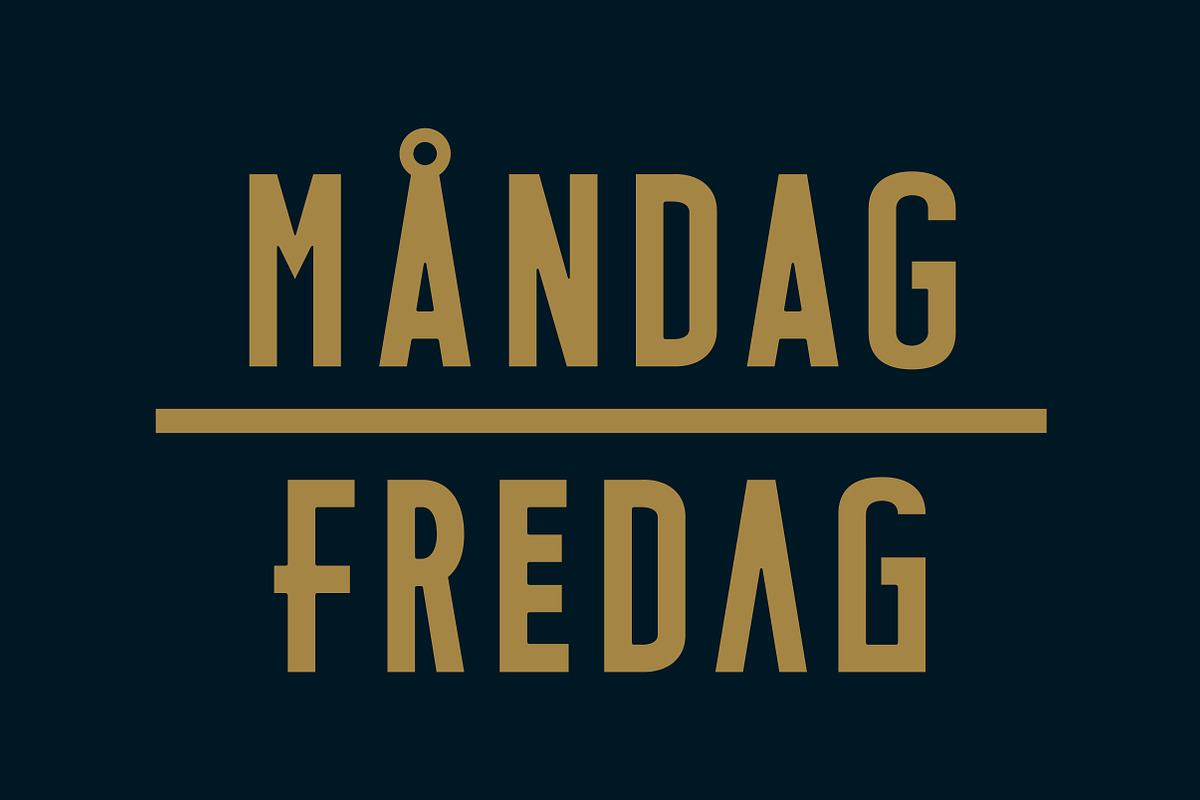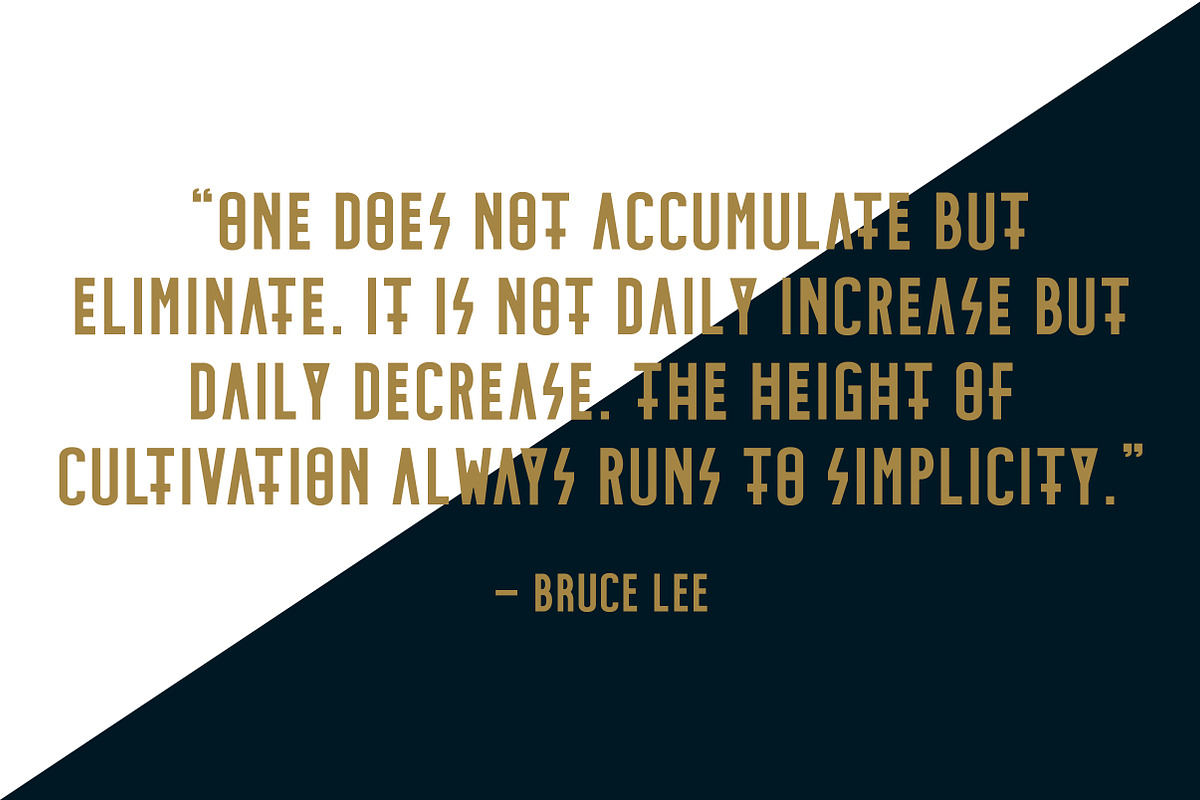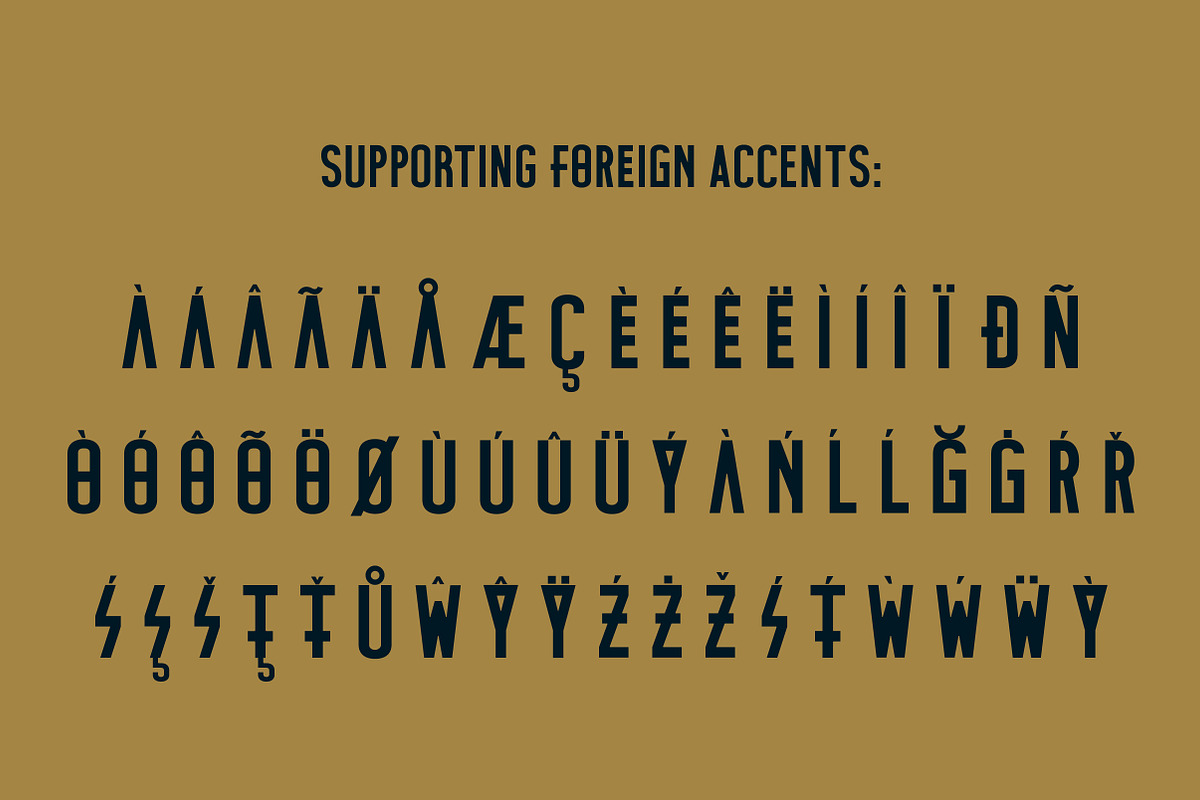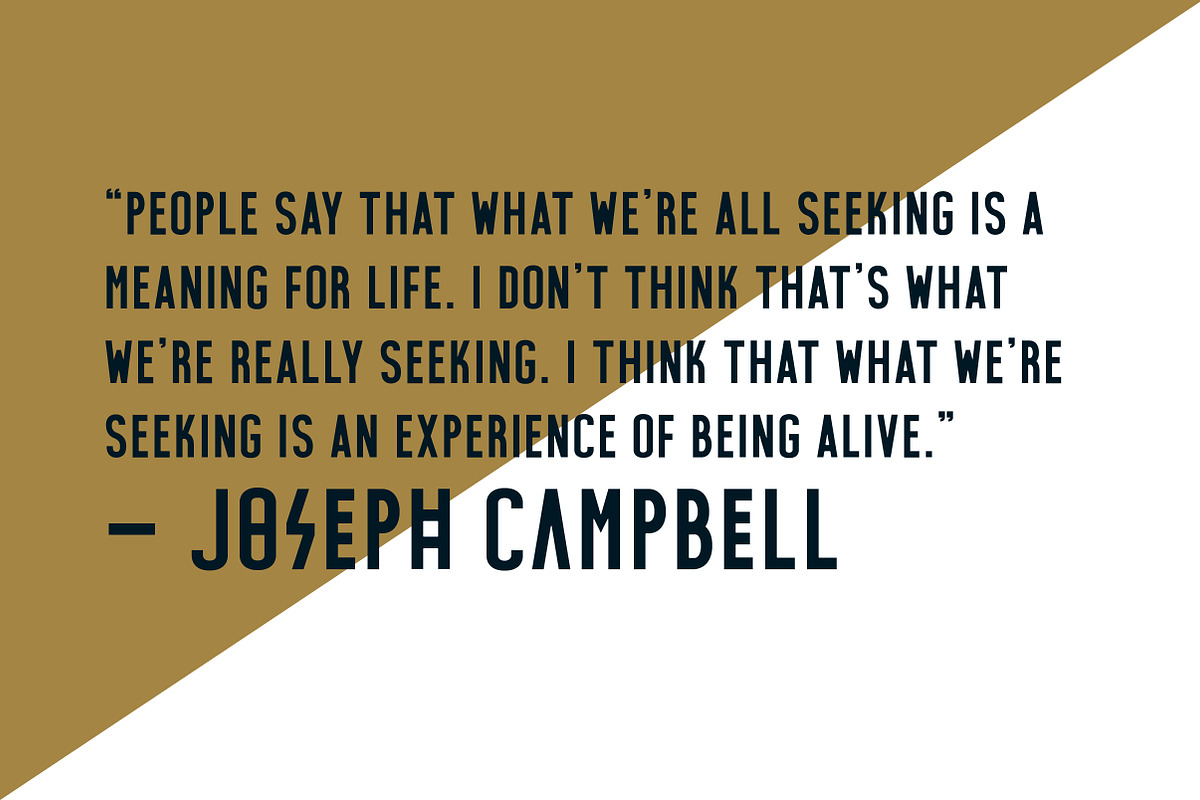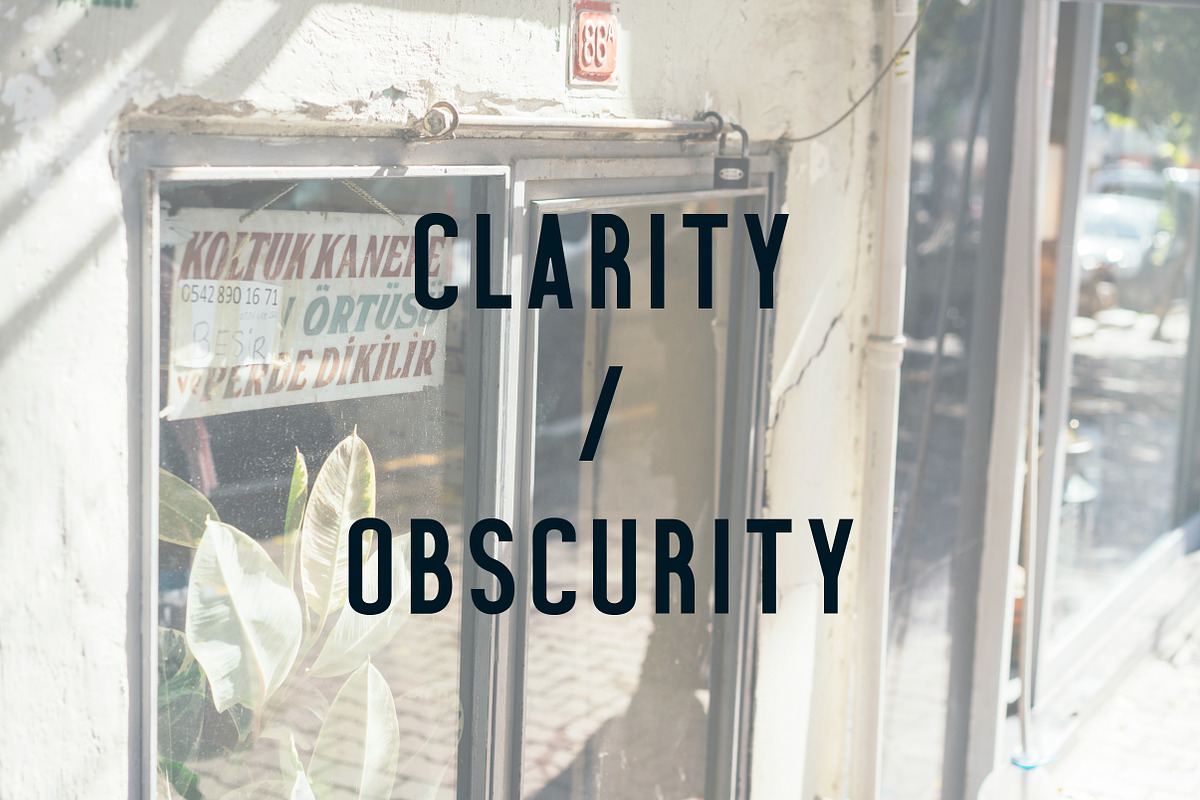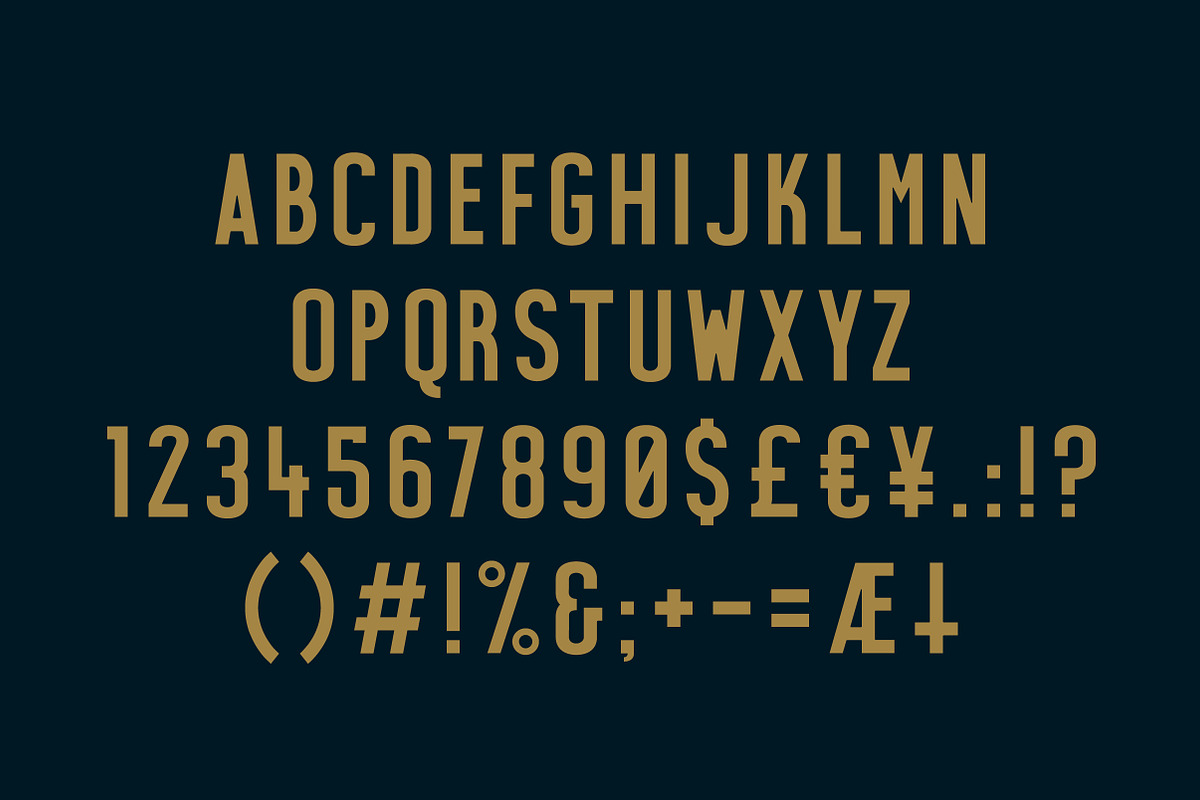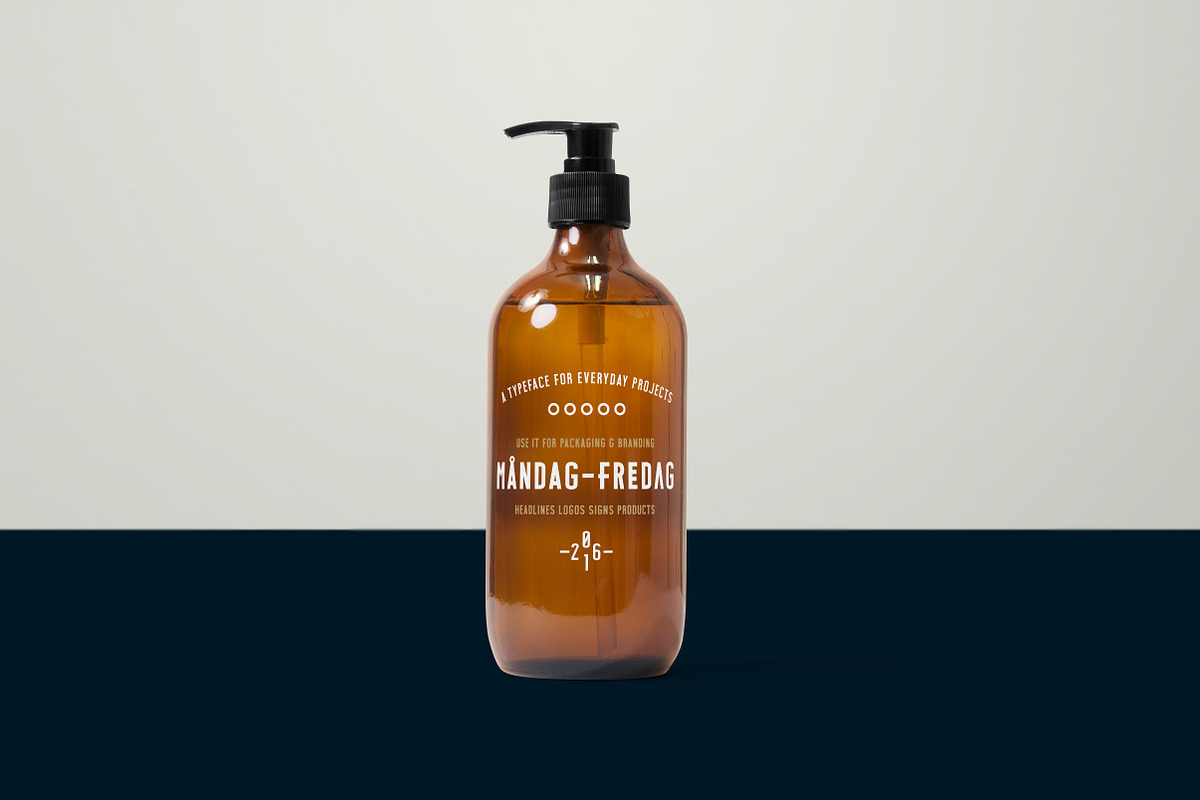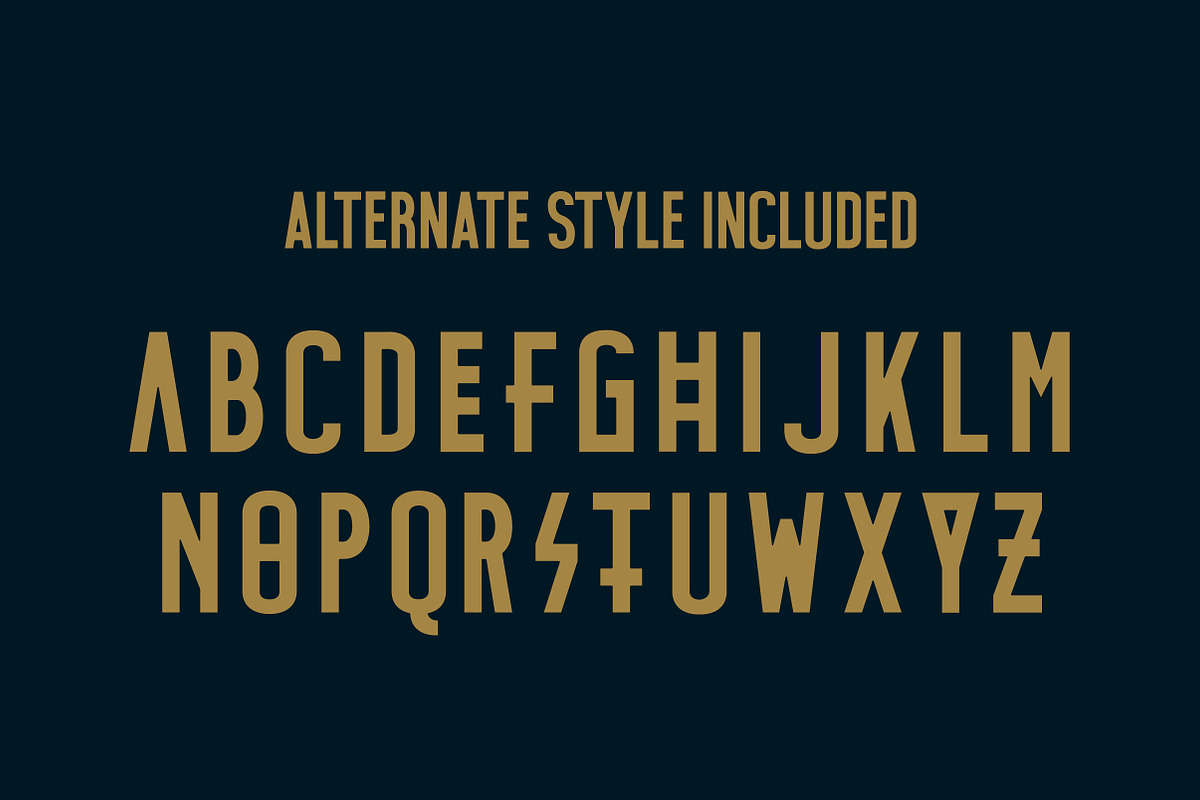
MÅNDAG - FREDAG Typeface
MÅNDAG - FREDAG Typeface by Lettering Garage is a font selected for branding, posters, packaging, typography.
- Try Måndag - Fredag for: Branding Instagram posts Signs Posters Apparel designs Headlines Editorials & more Includes special characters Supp
- With it's second style Fredag the subtle typeface becomes experimental and wild and combines the classic letters with alternate versions.
MÅNDAG - FREDAG Typeface by Lettering Garage fits naturally into Branding, posters, packaging, typography.